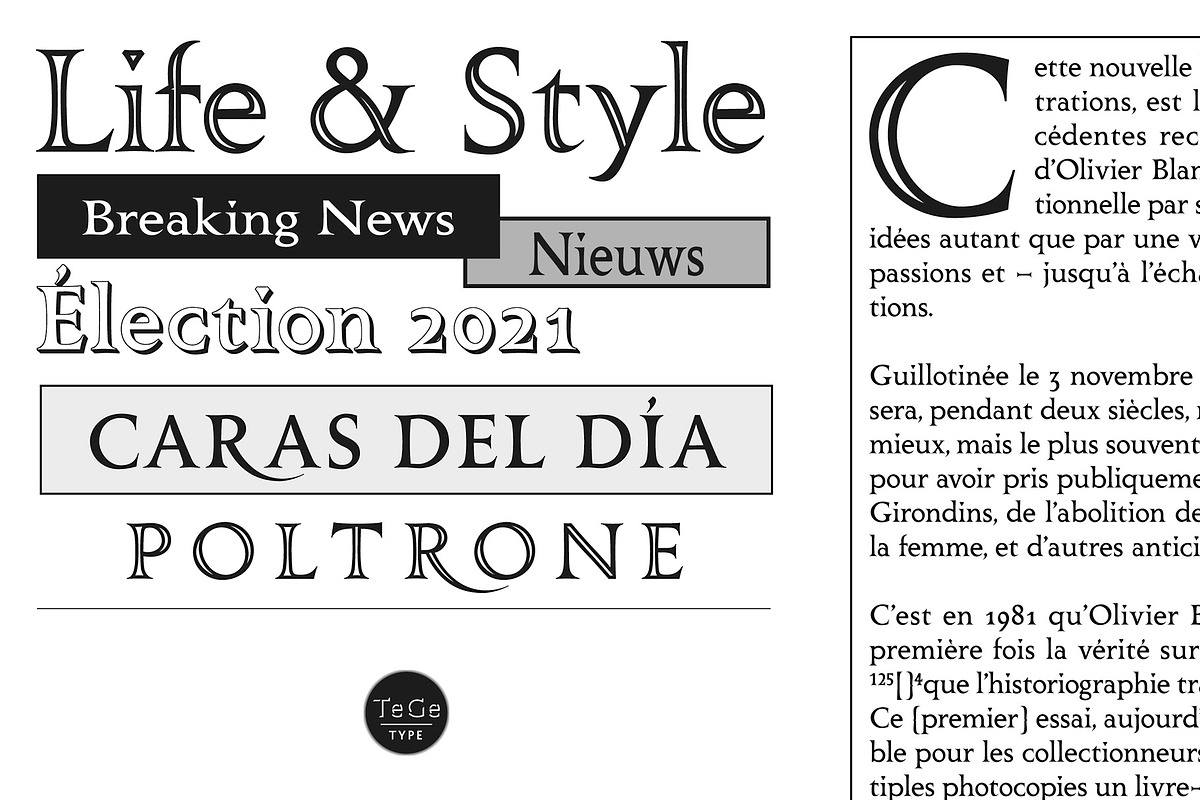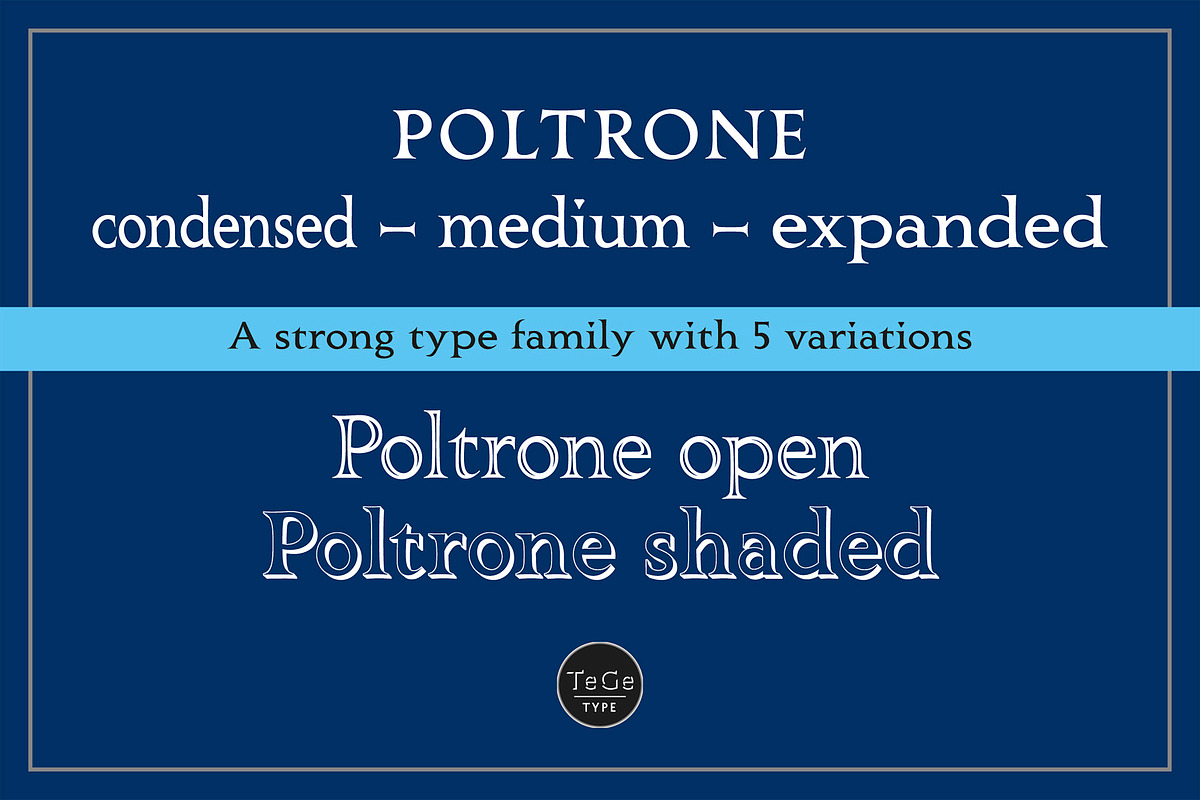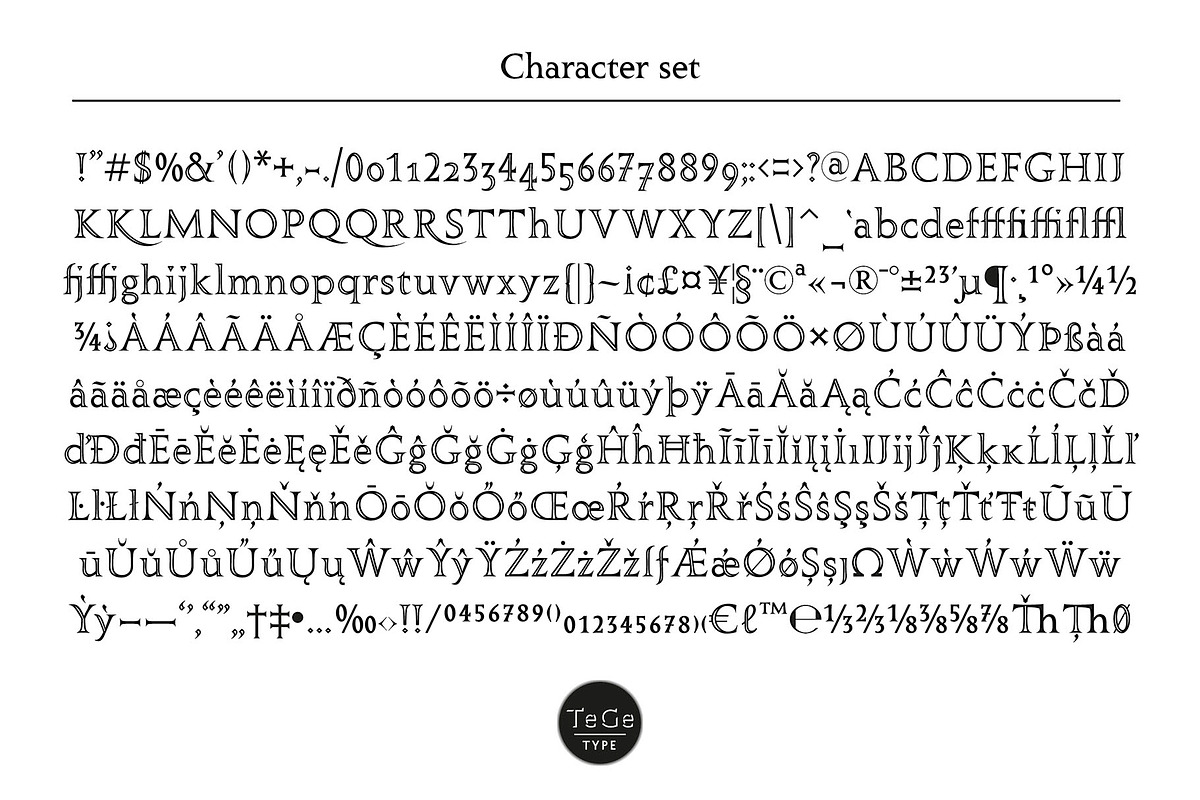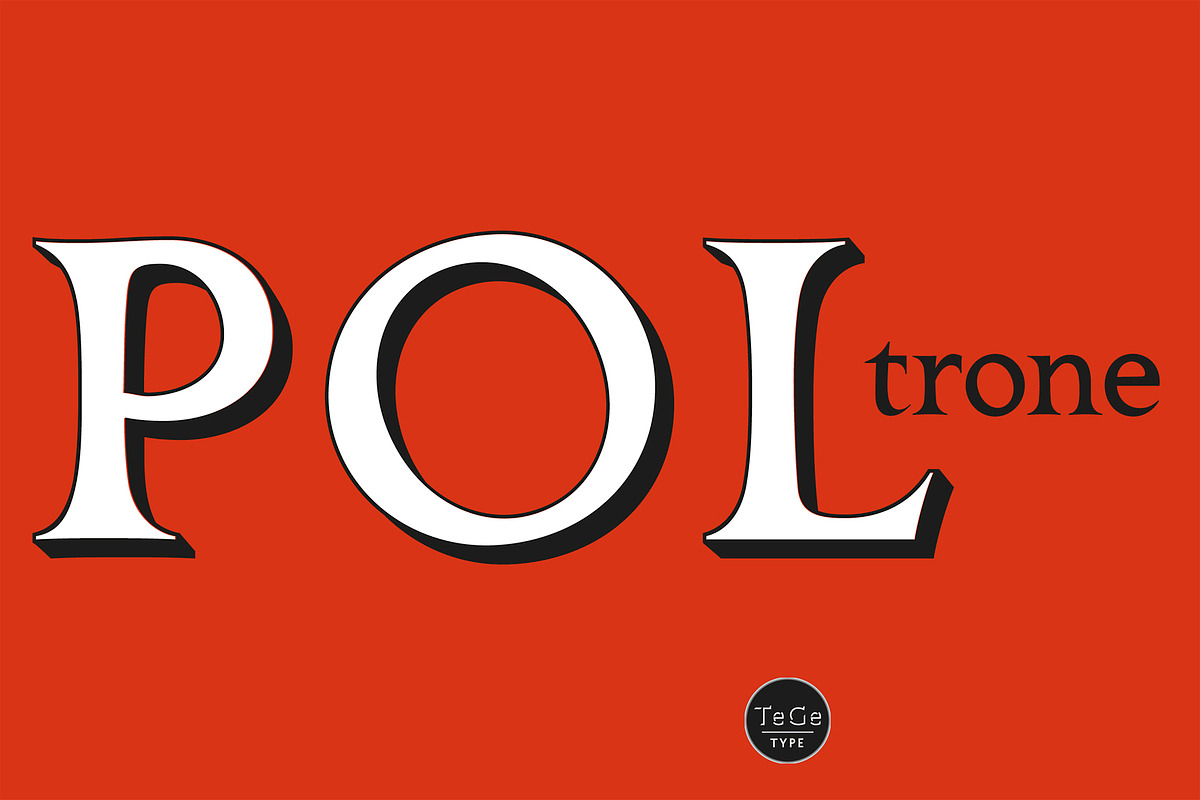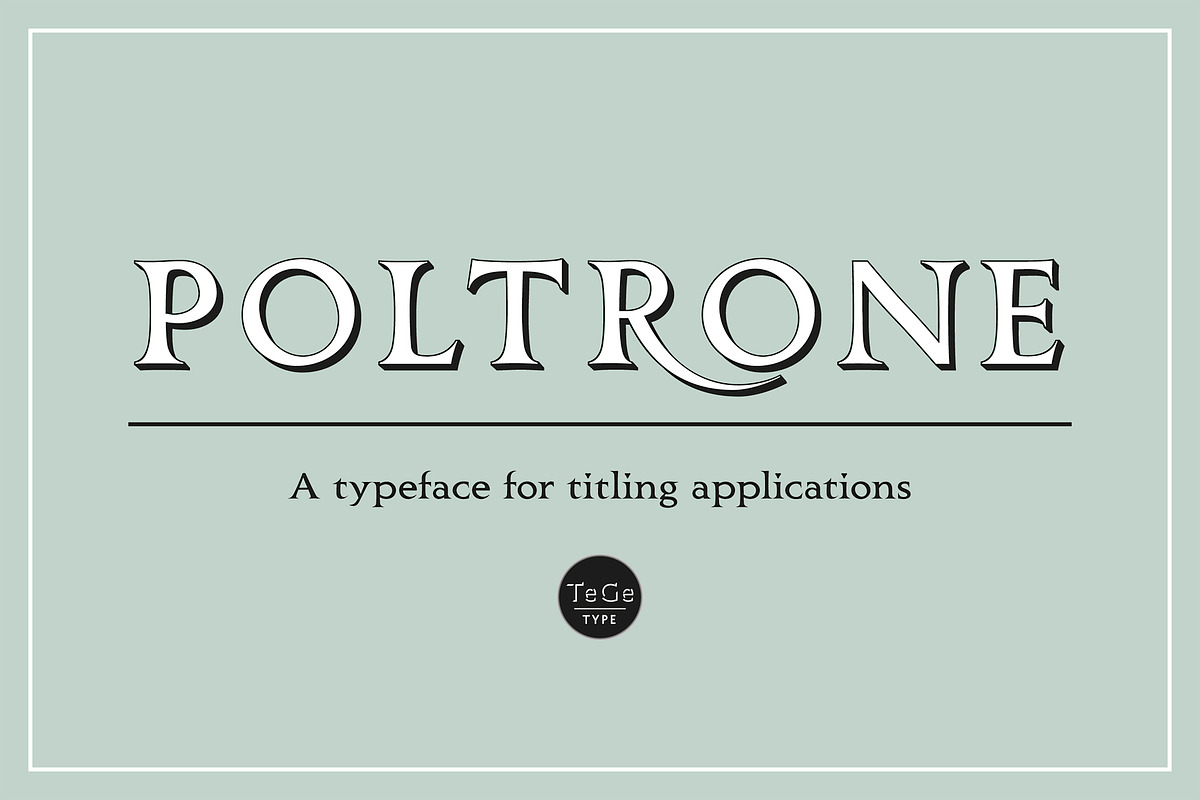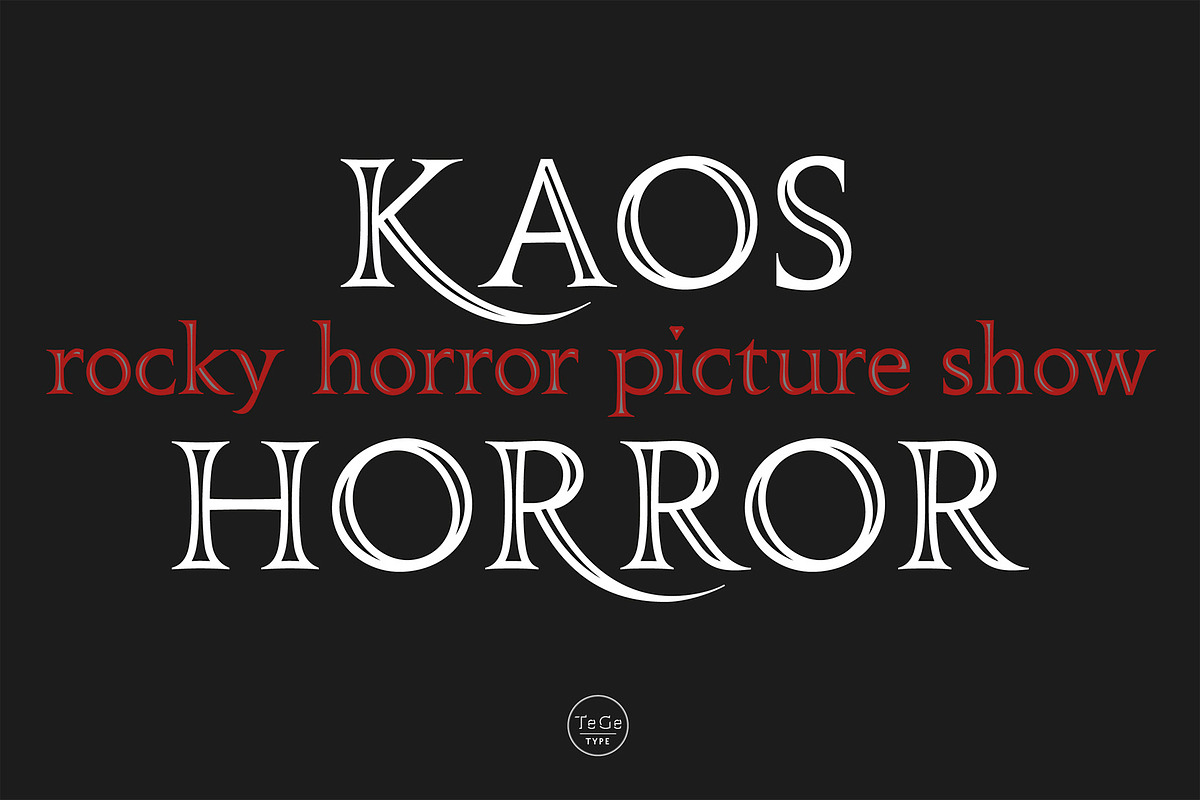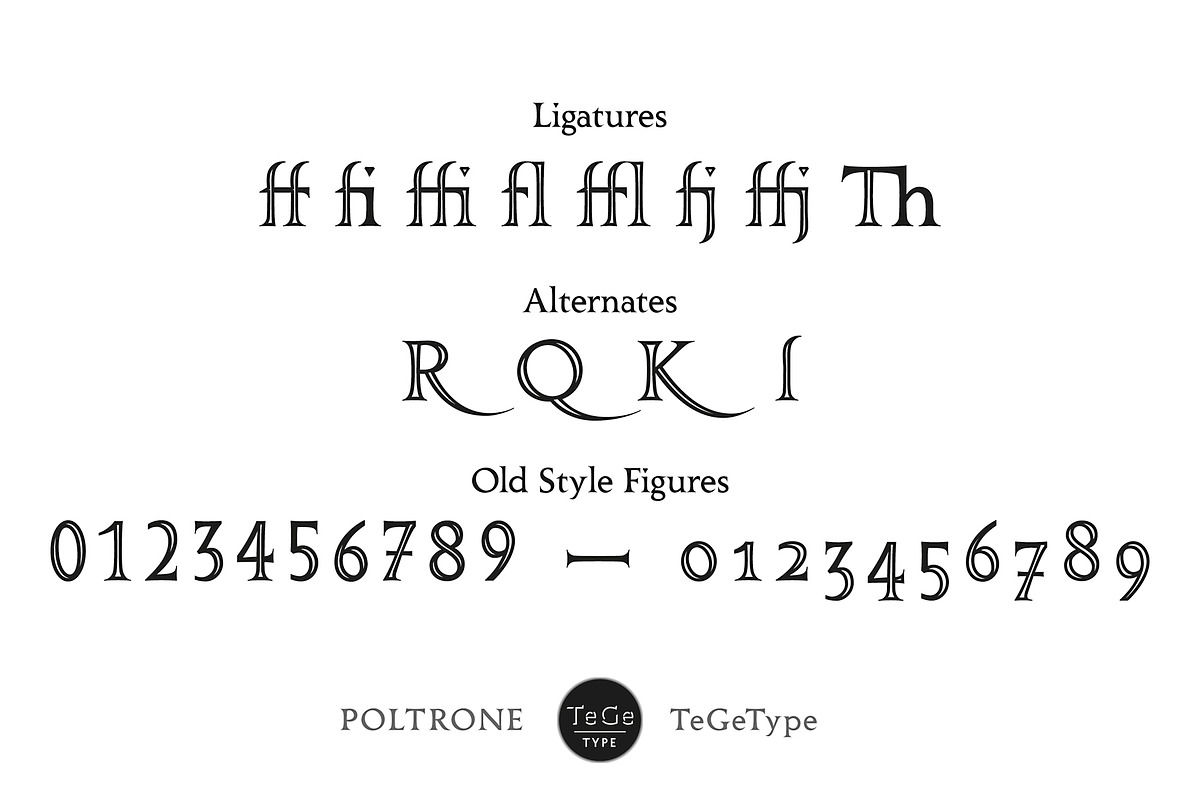
Poltrone
The Poltrone typefaces family was inspired by the public inscriptions of the 19th century and was designed to be used for titling, headlines, etc.